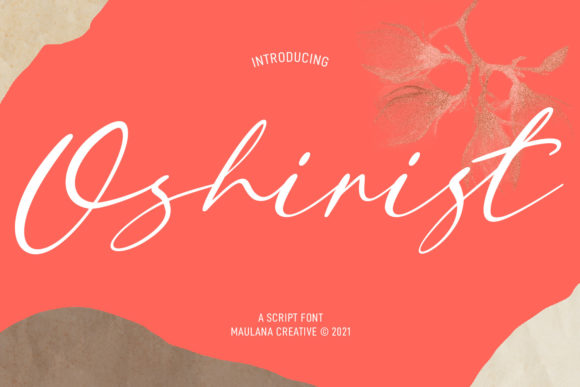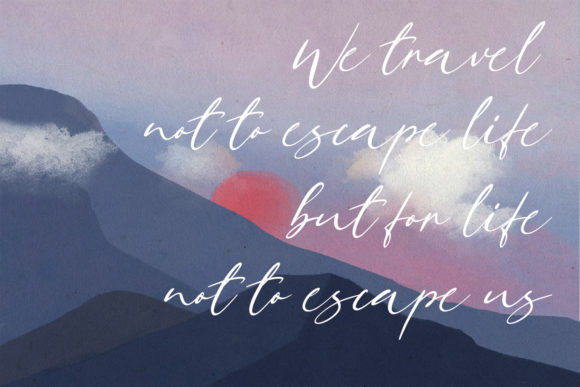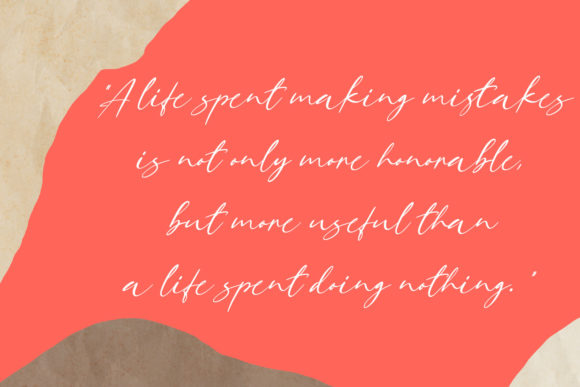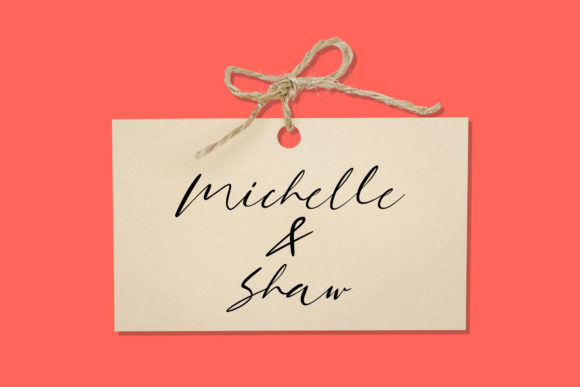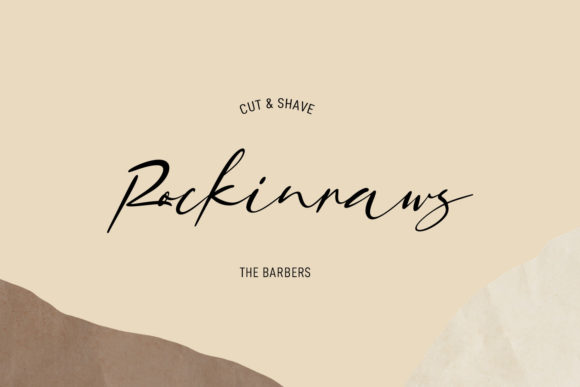
Oshirist Script Font
About Oshirist Script Font
Oshirist Script is a stylish and flowing handwritten font. It looks beautiful on a variety of designs requiring a personalized style, such as wedding invitations, thank you cards, weddings, greeting cards, logos and so on.